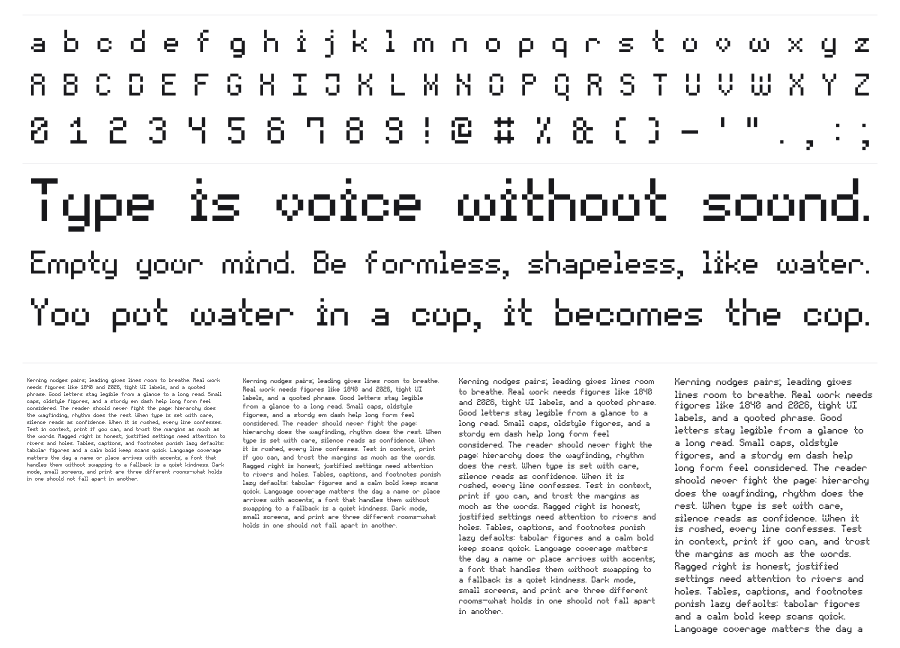
Void Pixel-7
Void Pixel-7 is a blocky bitmap typeface from Style-7 with that unmistakable 8-bit grid construction, every character built from sharp, uniform pixel blocks. The monospace spacing reinforces its digital roots, calling back to early computer terminals and classic game interfaces. Best kept to headlines, screen graphics, and retro gaming projects where the lo-fi aesthetic is the whole point.